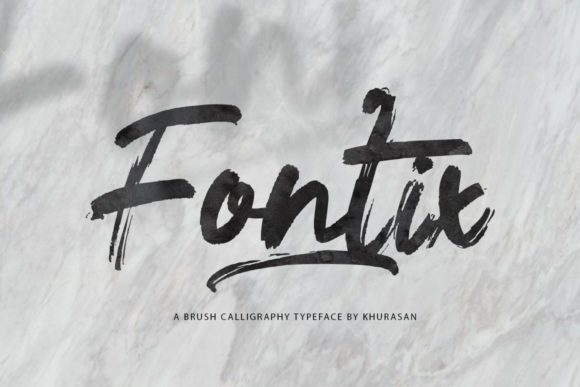
Introducing Fontix Font: The Perfect Blend of Casual and Quirky
Are you tired of using the same old fonts for your design projects? Look no further than Fontix Font, a casual, fun handwritten font that’s sure to add a touch of personality to your logos, branding, social media, and DIY projects. Created by using a brush pen, Fontix Font boasts a clean and quirky aesthetic that’s perfect for designers and crafters looking to add some whimsy to their work.
The Story Behind Fontix Font
Fontix Font was designed with the intention of creating a unique and versatile font that could be used across a variety of platforms. The font’s creator used a brush pen to craft each letter, giving Fontix a distinctly handwritten feel that’s both approachable and charming. The result is a font that’s equal parts playful and professional, making it an excellent choice for a wide range of design applications.
Key Features of Fontix Font
- Casual and Fun: Fontix Font is the perfect choice for designers who want to add a touch of personality to their work. Its casual, handwritten feel makes it ideal for social media graphics, blog posts, and other informal design projects.
- Clean and Quirky: Despite its playful nature, Fontix Font remains remarkably clean and legible. This makes it an excellent choice for logos, branding, and other applications where clarity is key.
- Brush Pen Texture: The use of a brush pen to create Fontix Font gives it a unique texture that’s both visually appealing and distinctive.
- Versatile: Fontix Font can be used across a wide range of design applications, from logos and branding to social media graphics and DIY projects.
Uses for Fontix Font
So, what can you use Fontix Font for? The possibilities are endless! Here are a few ideas to get you started:
- Logos and Branding: Fontix Font’s unique blend of casual and quirky makes it an excellent choice for logos and branding. Use it to create a memorable and eye-catching brand identity that sets you apart from the competition.
- Social Media Graphics: Add a touch of personality to your social media graphics with Fontix Font. Its clean and legible design makes it perfect for creating engaging and shareable content.
- DIY Projects: Fontix Font is also an excellent choice for crafty DIY projects, such as handmade cards, gift tags, and other paper crafts.
- Blog Posts and Articles: Use Fontix Font to add a touch of whimsy to your blog posts and articles. Its casual and approachable feel makes it perfect for informal writing.
Tips for Using Fontix Font
Here are a few tips for getting the most out of Fontix Font:
- Experiment with Colors: Fontix Font looks great in a variety of colors, so don’t be afraid to experiment and find the perfect hue for your design.
- Mix and Match: Fontix Font pairs well with a range of other fonts, so try mixing and matching it with different typefaces to create a unique and eye-catching design.
- Play with Texture: The brush pen texture of Fontix Font adds a lot of character to your designs, so try playing with different textures and patterns to add depth and interest.
Fontix Font is a versatile and charming font that’s perfect for designers and crafters looking to add a touch of personality to their work. Its unique blend of casual and quirky makes it an excellent choice for a wide range of design applications, from logos and branding to social media graphics and DIY projects. With its clean and legible design, Fontix Font is sure to become a go-to font in your design arsenal.